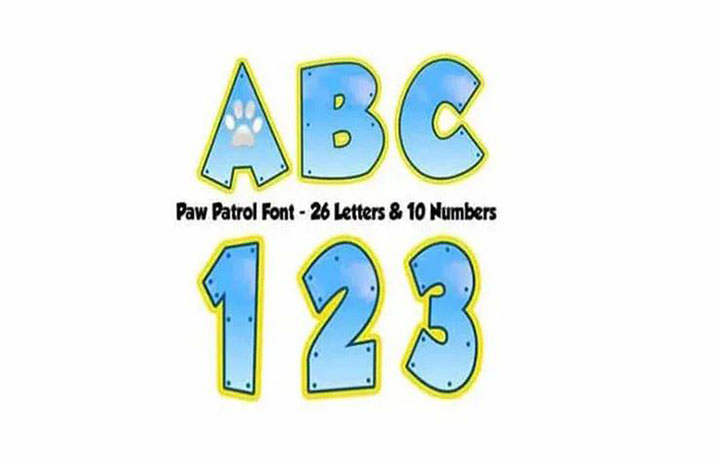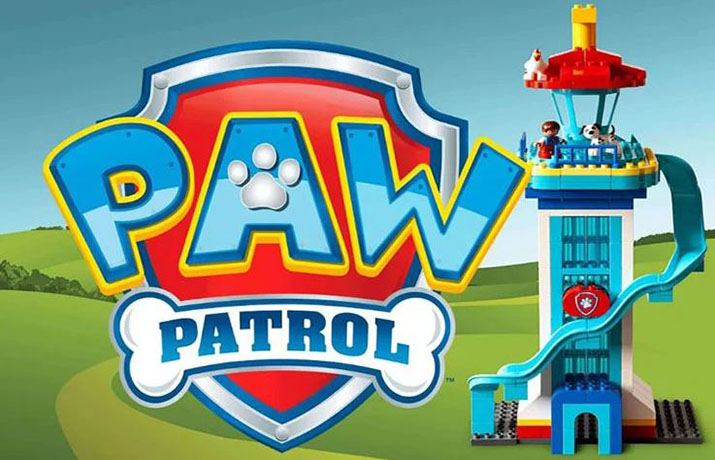
Paw Patrol Font is a logo typeface basically, Paw Patrol is a Canadian animated television series created by Keith Chapman and produced by Spin Master Entertainment, with animation provided by Guru Studio.
The series first aired on August 12, 2013, on Nickelodeon in the United States and in Canada on TVOKids on September 2, 2013.
The Paw Patrol logo in the poster has two different fonts, the “PAW” part features a comic-style font, which is probably custom-designed. To recreate it, you can try some similar fonts like Grobold and Minnie.
“As for the font used for “PATROL”, it is probably Aachen, a heavy-stroked slab serif font designed by Alan Meeks. Here at Fontsmonster, we’re providing these stylish movie font families.”
Style:Logo, Fancy, Cartoon
• It is perfect for logos, product packaging, product designs, comic covers, game titles, game developments, movie posters, unique emblems, product designs, special event cards, game graphics, cartoons, kid’s elements, headers, banners, product designs, special event cards, game graphics, cartoons, titles, banners, headers, kid’s elements, headers, flyers, headers, printing on cards, and a lot more because of the playful shapes of the letters.
What is Paw Patrol Font?
Paw Patrol Font is a logo typeface basically, Paw Patrol is a Canadian animated television series created by Keith Chapman and produced by Spin Master Entertainment, with animation provided by Guru Studio.